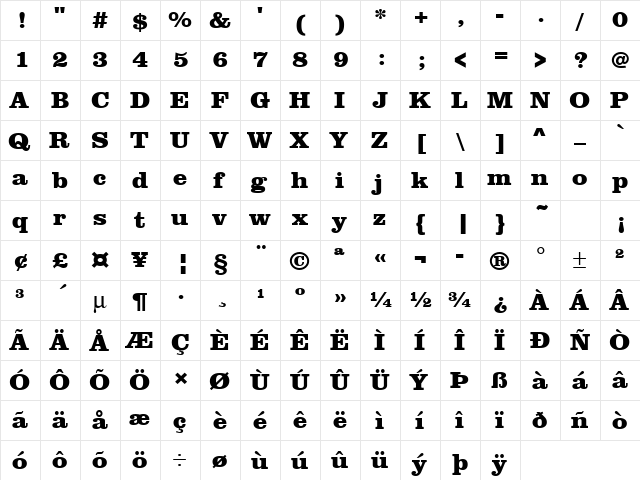
URWClarendonTExtBolWid Regular Font Preview
URWClarendonTExtBolWid Regular
Design Context for URWClarendonTExtBolWid Typeface
URWClarendonTExtBolWid combines the readability of serif typography with the visual weight of a slab construction, resulting in a typeface that feels both authoritative and approachable.
Suited to magazines, political campaign materials, bold packaging, and any setting where authority matters.
Pro Tip: Use URWClarendonTExtBolWid for headlines and subheadings where its slab serifs can make an impression. It also holds up well in mid-size body copy thanks to its sturdy construction.